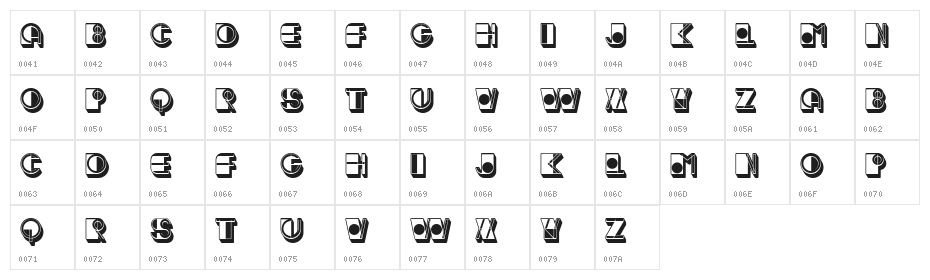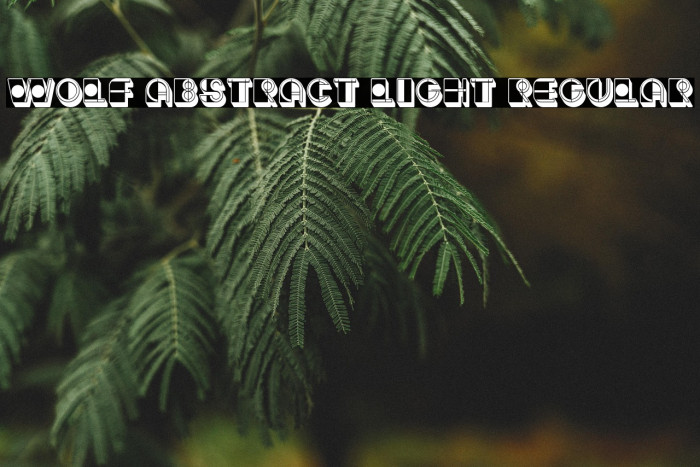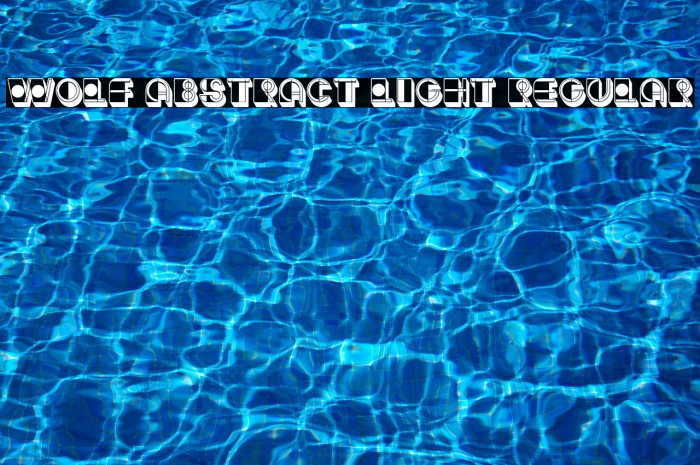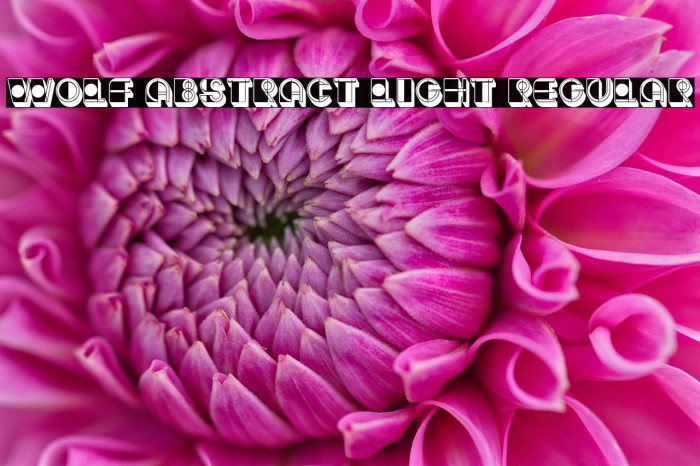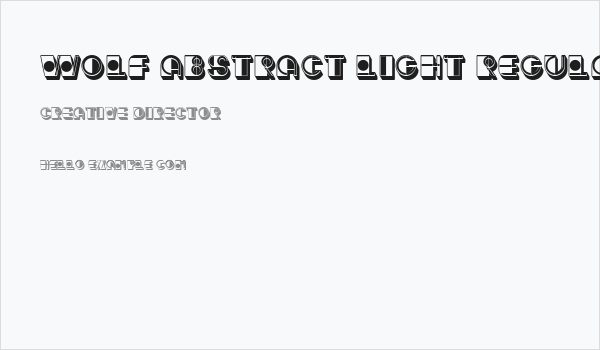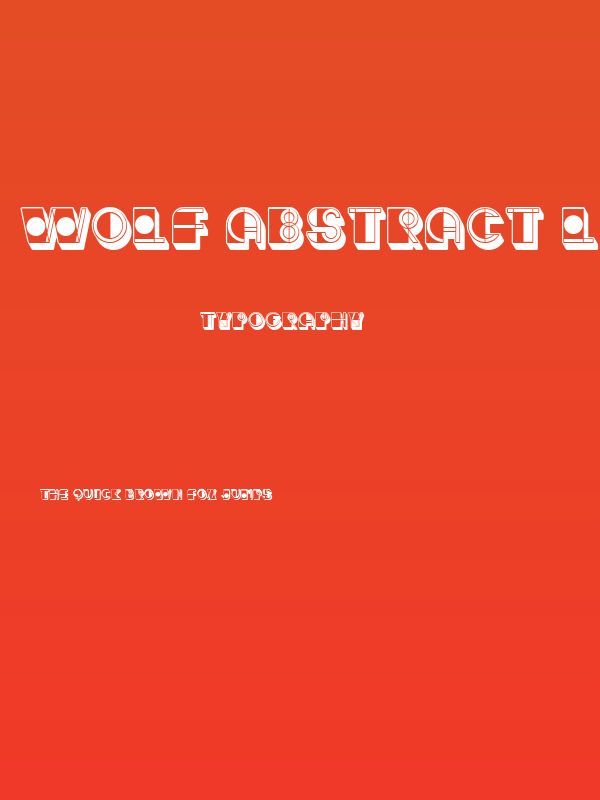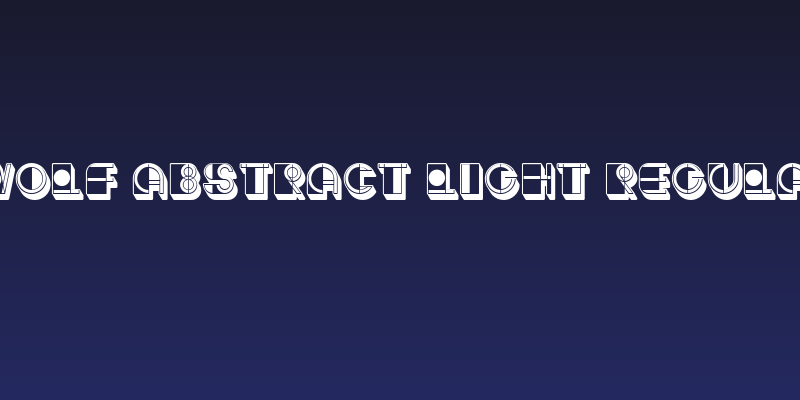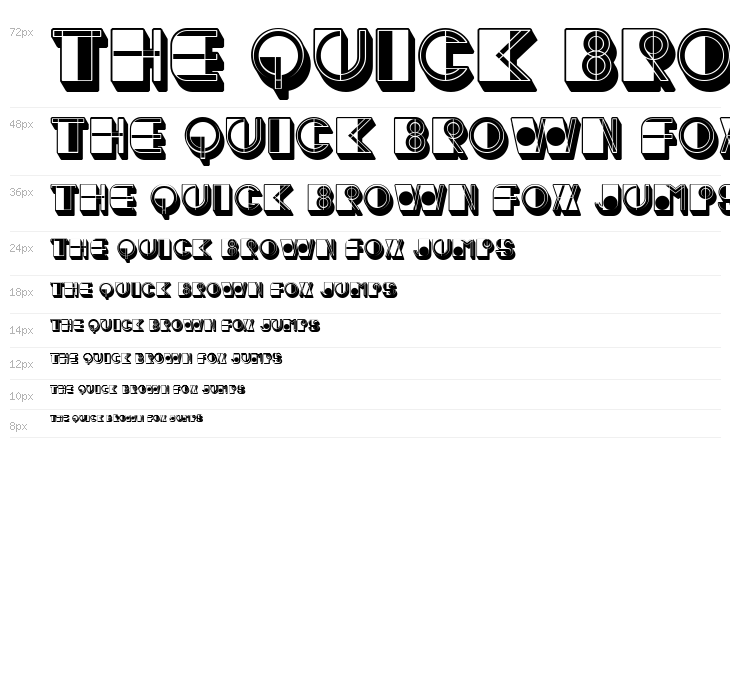
Wolf Abstract Light Regular Font
Wolf Abstract Light Regular Description
This font features a bold, geometric design with a three-dimensional effect, creating a striking visual impact. The letters are constructed with thick lines and sharp angles, giving them a modern and abstract appearance. The use of shadows and outlines enhances the depth and adds a dynamic quality to the characters. This style is particularly eye-catching and is suitable for projects that require a strong visual presence. The font's unique design makes it ideal for creative and artistic applications.
| Proposed Projects | Ideal for posters, album covers, branding, and any project needing a bold, artistic touch. |